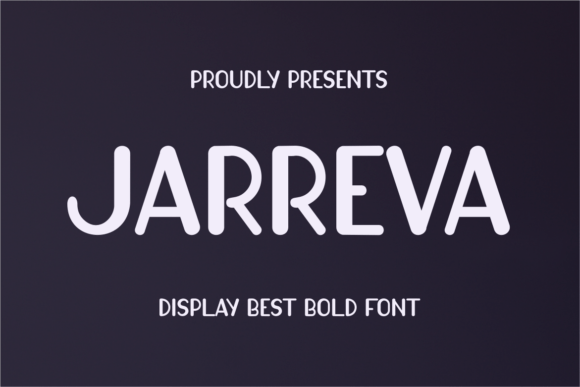
In the realm of digital artistry, where visual narratives captivate hearts and minds, the Jarreva Display Font emerges as a towering beacon of innovation. Let your imagination take flight as you delve into the boundless possibilities of this typographic masterpiece. Embrace the boldness that Jarreva exudes, captivating your audience with every stroke of brilliance.
From the world of Monoletter, Jarreva emerges as a force to be reckoned with, meticulously crafted to redefine the boundaries of visual expression. This font is a concerto of curves and angles, a symphony of lines and shapes, designed to orchestrate an unforgettable visual experience.
With its inherent versatility, Jarreva effortlessly adapts to a diverse range of creative endeavors. Whether you're crafting captivating headlines, weaving enchanting stories, or composing unforgettable designs, Jarreva stands as your steadfast companion, ready to elevate your creations to new heights of brilliance.
Unleash the power of Jarreva for broadcasting events, letting its bold strokes and dynamic presence command attention on screens both large and small. Its captivating essence breathes life into colossal films, action-packed adventures, light-hearted comedies, and the tender moments of romantic love.
Beyond its cinematic prowess, Jarreva flourishes in the realm of digital design. Its distinctive character adds a touch of sophistication to websites, social media campaigns, and branding initiatives. Let Jarreva be your visual storyteller, enchanting your audience with its timeless elegance.
Immerse yourself in the world of Jarreva, a font that embodies boldness, versatility, and limitless creativity. Experience the transformative power of typography as you craft stunning visuals that leave a lasting impression.